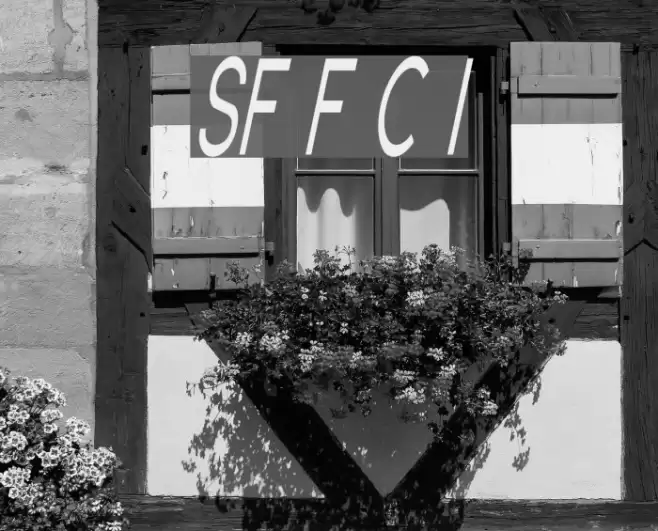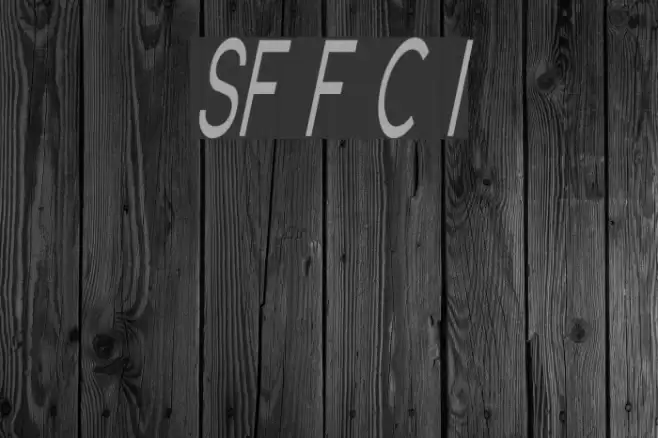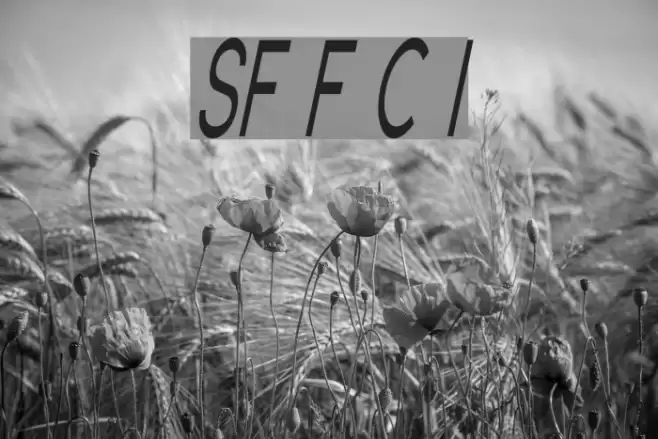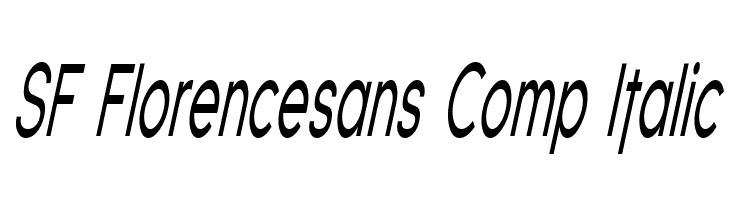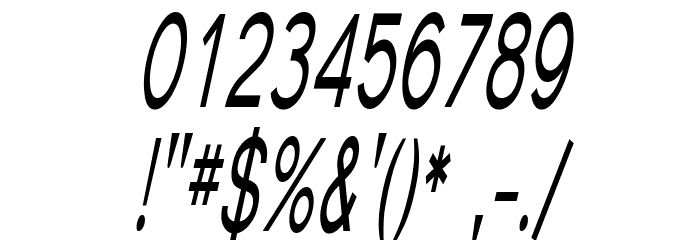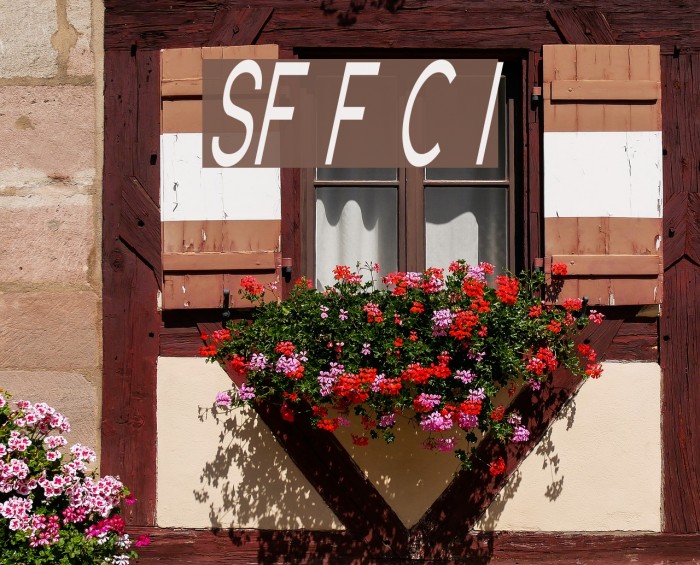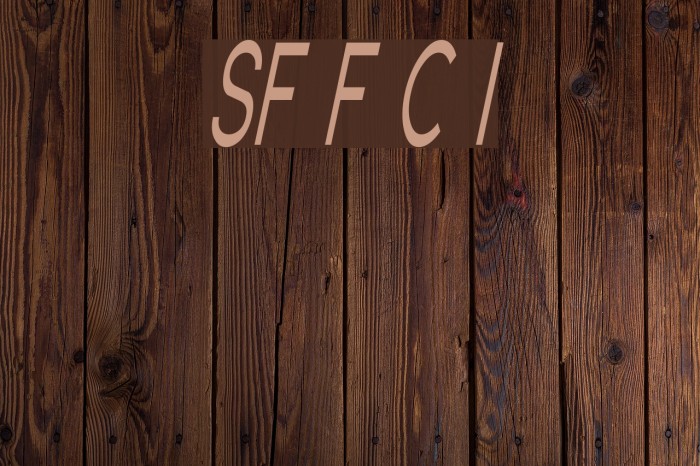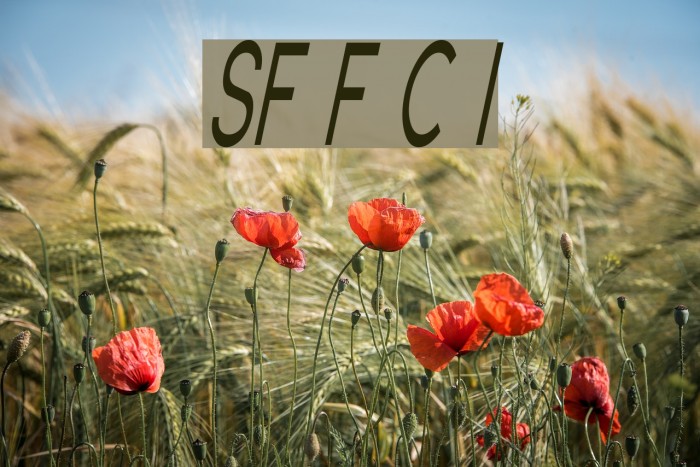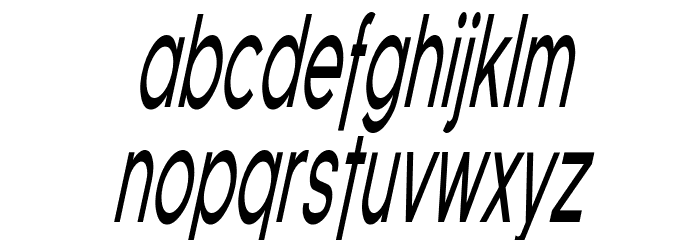
SF Florencesans Comp Italic Font
SF Florencesans Comp Italic Description
This font exhibits a sleek and modern sans-serif style with a distinct italic slant, giving it a dynamic and forward-moving appearance. The characters are condensed, enhancing its compact and efficient look. The strokes are uniform, with medium contrast, providing a clean and professional aesthetic. The uppercase and lowercase letters are well-proportioned, and the numerals are clear and easy to read. Special characters are included, maintaining the font's cohesive style. This font is suitable for projects that require a contemporary and stylish touch.
A modern, italic sans-serif font with a condensed and dynamic style from Uncategorized fonts.
- Proposed Projects: Ideal for branding, advertising, modern web design, and editorial layouts.
- Use Case: Headlines, Logos, Branding